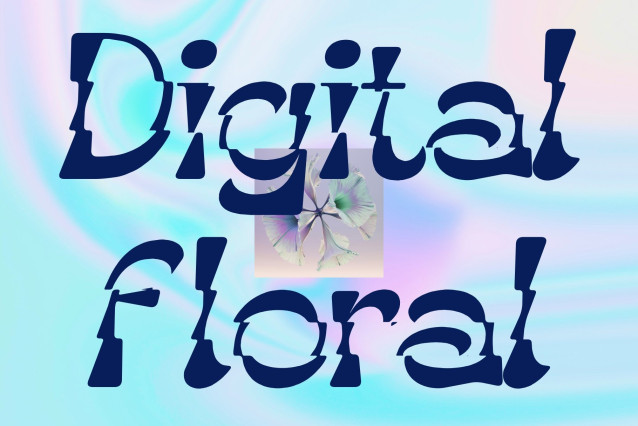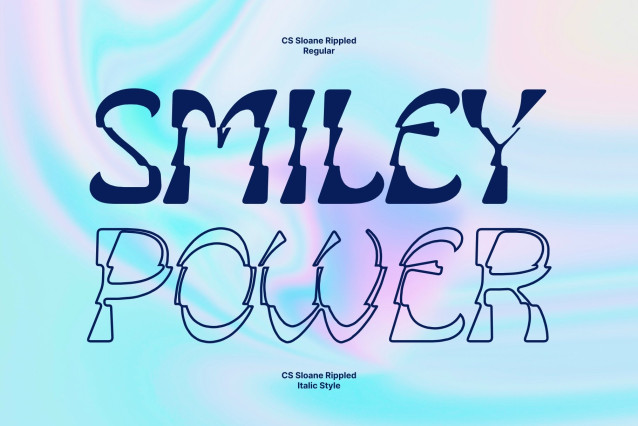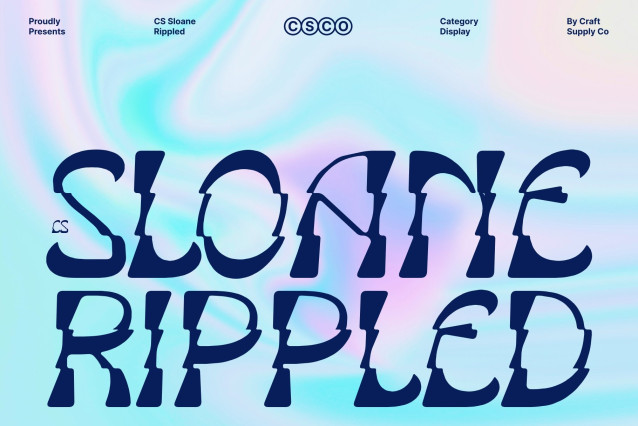
CS Sloane Rippled – Reverse Contrast Font with Liquid 90s Energy
A Bold Fusion of Retro and Modern Design
This is a reverse contrast display font that merges nostalgic 90s aesthetics with bold contemporary design. Featuring thick lower strokes paired with thinner upper sections, the font creates a striking visual rhythm that immediately captures attention. This unconventional structure gives the typography a unique sense of movement and personality.
Bold, Funky, and Full of Expressive Energy
The reverse contrast construction gives this font a vibrant and energetic personality that radiates creativity and confidence. Its exaggerated proportions and dynamic letterforms evoke the playful spirit of 90s pop culture while maintaining strong readability and visual impact. The font feels bold, funky, and expressive, making it perfect for designs that aim to feel lively, unconventional, and full of character.